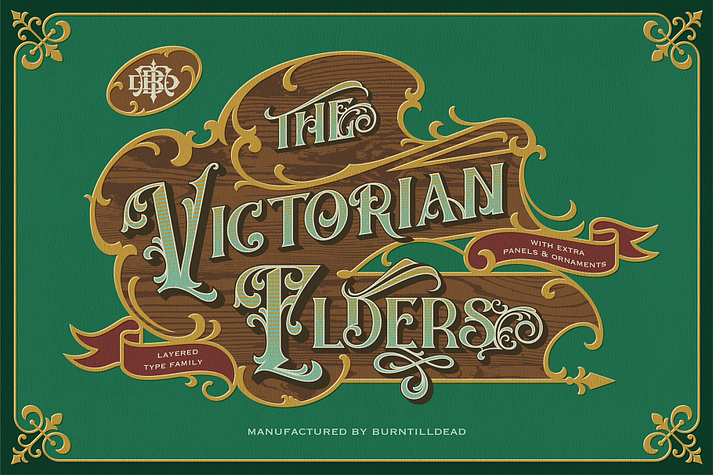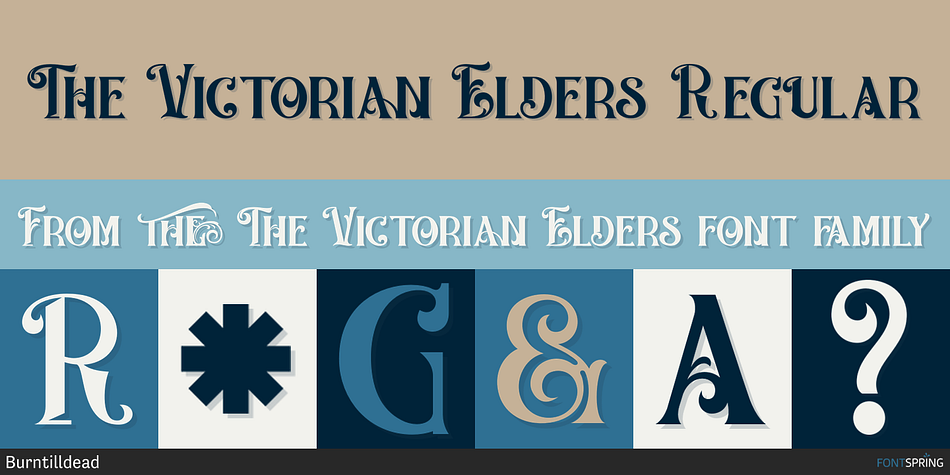
The Victorian Elders Regular
The Victorian Elders is a font family. This typeface has six styles and was published by Burntilldead.
"The Victorian Elders" is a typeface which is inspired by vintage victorian sign and letter head. Powered with layer system, this font have 4 styles: Regular, Outline, Gradient & Extrude.
Very suitable for for headline, logotype, apparel, invitation, branding, packaging, advertising etc with old school / retro theme.
This typeface contains with beautiful decorative ornaments & panels in vector format that ready to use to create a vintage lettering in sec. It also comes in uppercase, lowercase, punctuations, symbols & numerals, stylistic set alternate, ligatures, etc also support multilingual and already PUA encoded.